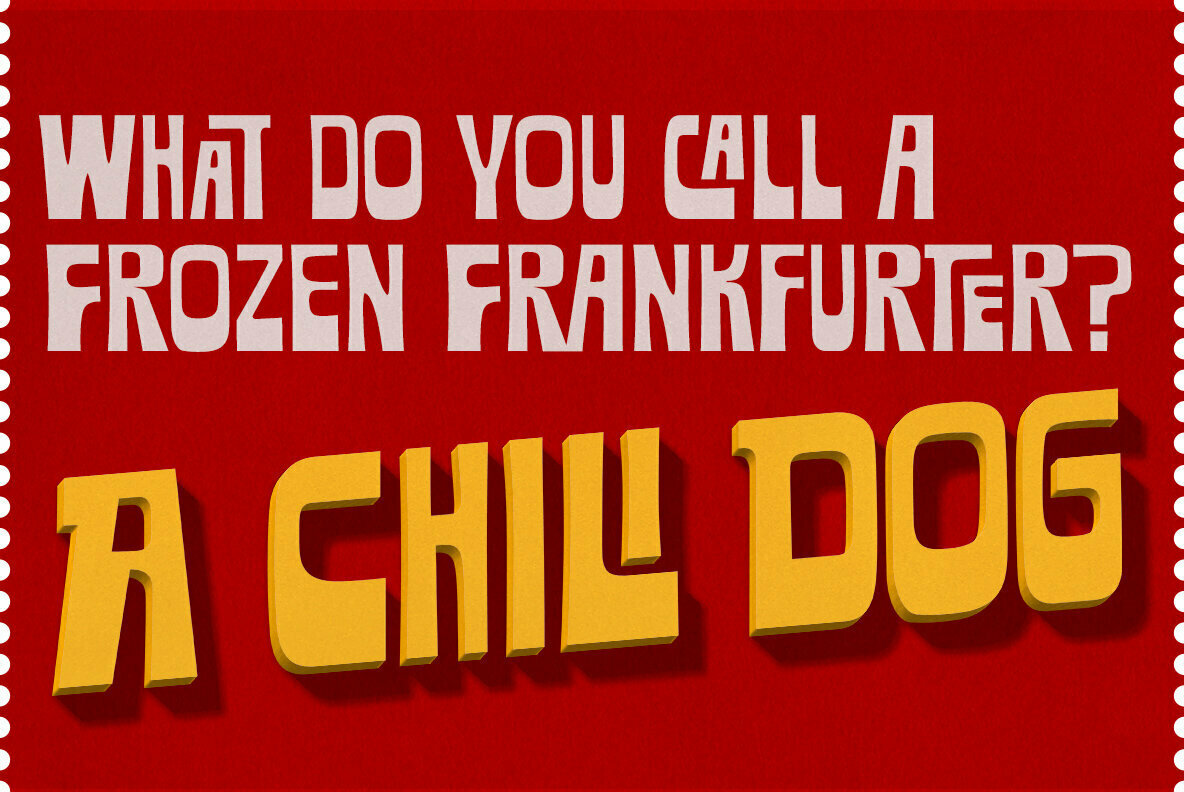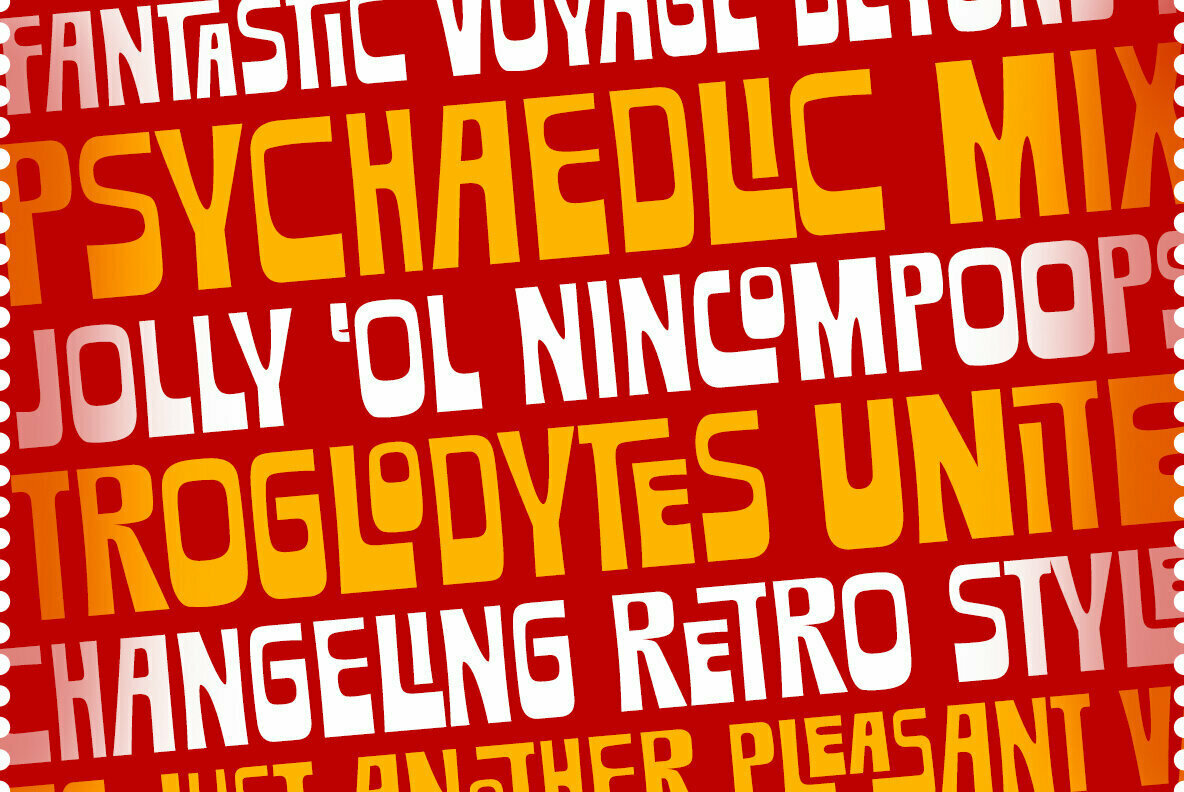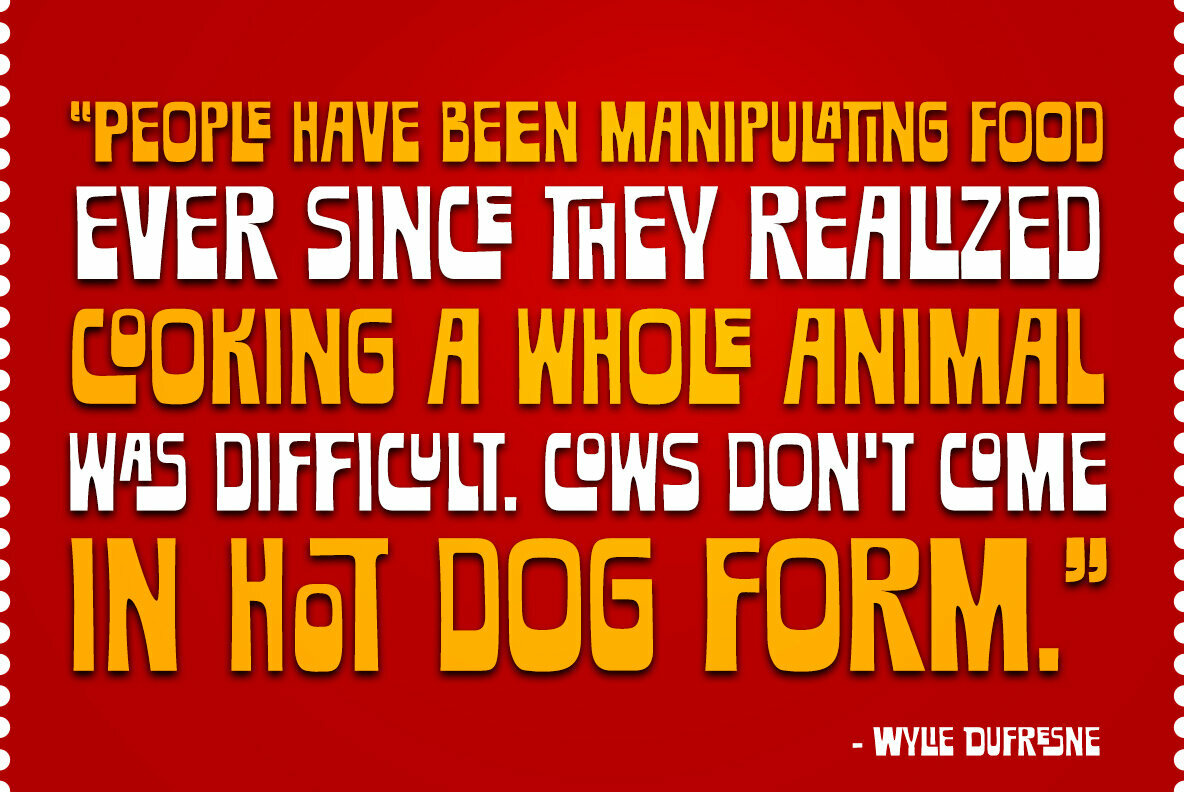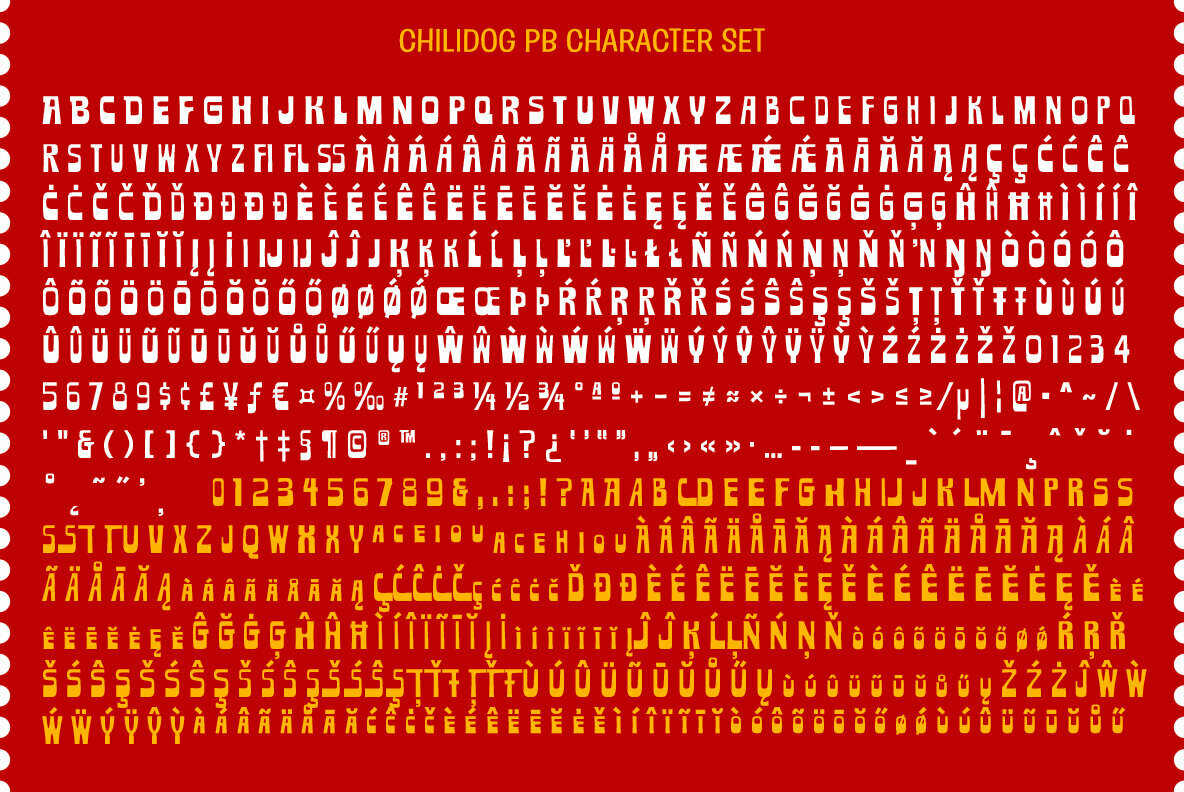
Chilidog PB
Looking for a real fun whack-a-doodle typestyle? You may have just found your match with the Chilidog PB typeface. Chilidog PB began as a digitization of the film typeface called Nectar by LetterGraphics.
This font is filled with irregular shapes, shifting weights, and a collection of ligatures that give it real personality. It's a real eyecatcher, but don't take my word for it, give it a spin for yourself.